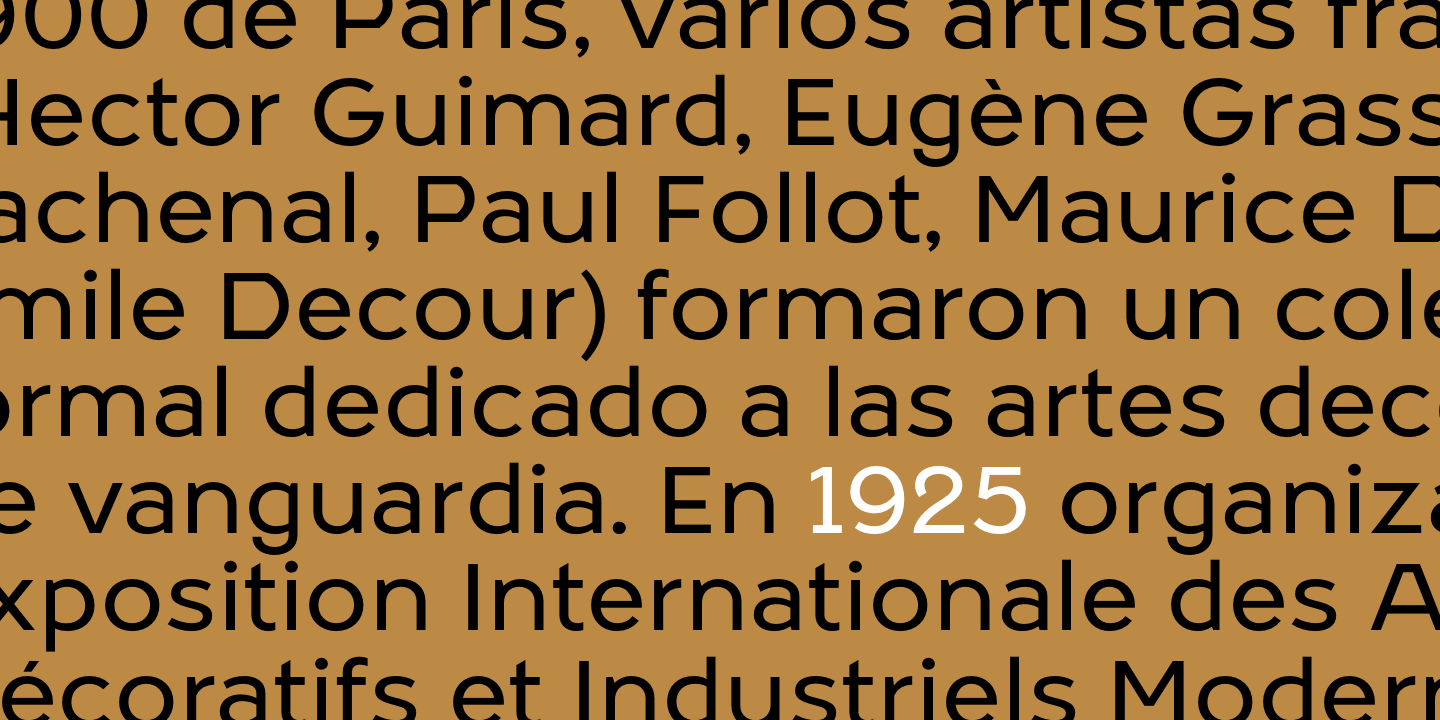
The Geo Deco Font is incredibly versatile, making it an exquisite choice for a wide array of design projects that aim to evoke the streamlined elegance of the Art Deco era, modern sophistication, and a bold, geometric aesthetic. Imagine it bringing a refined, glamorous touch to luxury brand identities, making exclusive event invitations truly sparkle, or adding a distinctive, timeless feel to editorial layouts for fashion and design magazines. It's also fantastic for crafting elegant product packaging for premium goods, unique signage for chic boutiques, and captivating web headers that stand out with their polished allure. Its inherent precision and stylish symmetry make it perfect for any project striving to communicate opulence, historical artistry, and an undeniable sense of enduring style.
What makes Geo Deco Font so exciting is its unique ability to blend the intricate detailing and symmetrical beauty of the Art Deco movement with a modern, crisp legibility. It often features strong, geometric forms, precise angles, and decorative elements that give it an immediate sense of vintage luxury and bespoke craftsmanship. This font doesn't just display text; it builds a visual masterpiece, making your message feel sophisticated, exclusive, and truly special. Its balance of aesthetic appeal and functional clarity ensures that your designs are not only beautiful but also effectively convey their intended sentiment. It's a typeface that brings an atmosphere of refined glamour and historical artistry to your typography, guaranteeing your projects leave a breathtaking and memorable impression.
The Geo Deco Font family typically includes a range of weights and stylistic alternatives to provide extensive creative flexibility. While specific options can differ, you can generally expect to find alternatives like Regular, Bold, and potentially an Outline or a set of decorative alternates with elegant ligatures that enhance its unique, period-inspired charm. These different weights and stylistic sets allow you to create dynamic visual hierarchies and add nuanced artistic flair to your typography, ensuring a cohesive and beautifully crafted design. This comprehensive family support ensures that whether you need a strong, elegant headline or a subtle, luxurious accent, Geo Deco Font Free Download offers the perfect elements to bring your sophisticated vision to life.